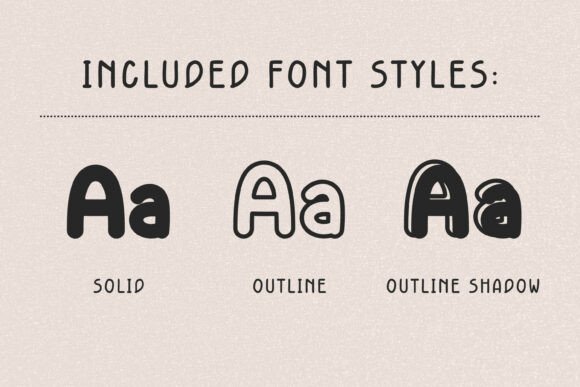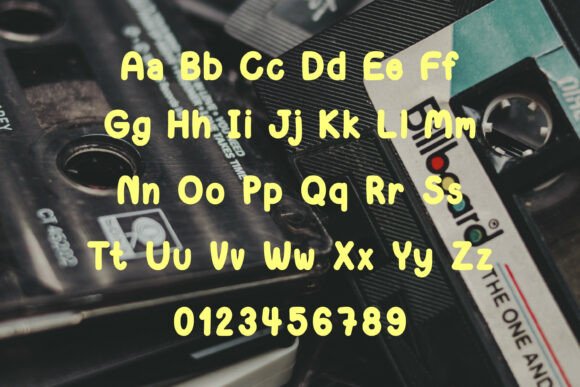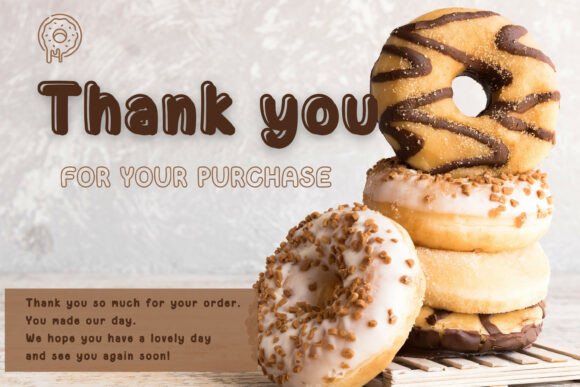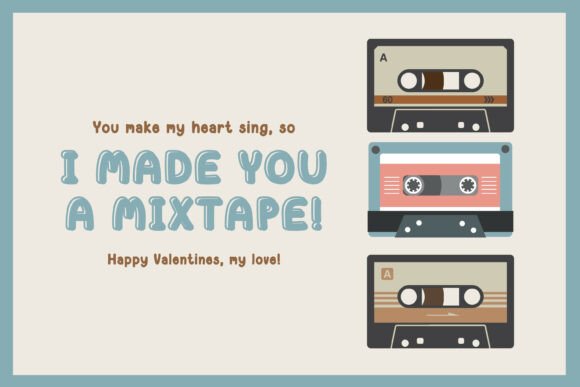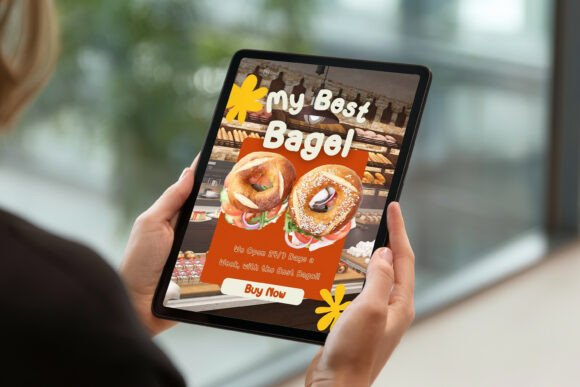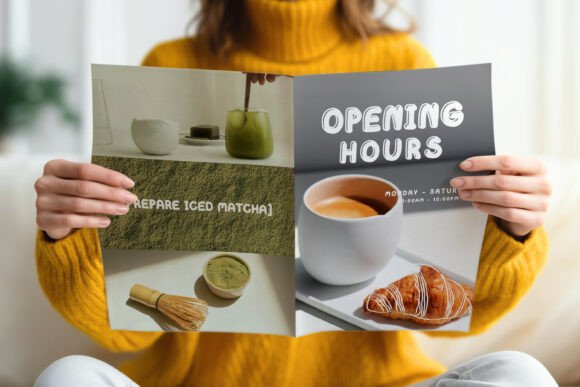
Introducing Cotton Soda Font: The Ultimate Retro Display Typeface
Are you looking for a font that can effortlessly capture a retro, high-energy vibe? Look no further than Cotton Soda, a playful display bubble font designed for maximum fun. This typeface features soft, rounded letterforms with a thick, pillowy weight and a subtle “bounce” in its alignment that gives it a vibrant, rhythmic personality.
The Characteristics of Cotton Soda Font
Cotton Soda font is a unique and eye-catching typeface that boasts a range of characteristics that make it perfect for nostalgic designs. Some of its key features include:
- Soft, rounded letterforms: Cotton Soda features soft, rounded letterforms that give it a friendly and approachable aesthetic.
- Thick, pillowy weight: The font has a thick, pillowy weight that gives it a tactile and playful feel.
- Subtle “bounce” in its alignment: The subtle “bounce” in the font’s alignment gives it a vibrant, rhythmic personality that’s perfect for capturing a retro vibe.
Use Cases for Cotton Soda Font
Cotton Soda font is an exceptional choice for a range of design projects, including:
- Nostalgic 80s or 90s-themed designs: The font’s retro vibe makes it perfect for designs that require a nostalgic feel, such as logos, posters, and packaging for products that evoke a sense of nostalgia.
- Children’s toy packaging: The font’s playful and friendly aesthetic makes it an excellent choice for children’s toy packaging, as it’s sure to appeal to kids and parents alike.
- Creative lifestyle branding: Cotton Soda font is perfect for lifestyle brands that want to evoke a sense of fun and playfulness, such as fashion brands, food and beverage companies, and travel companies.
- Catchy social media headers: The font’s bold and eye-catching design makes it perfect for social media headers, where it can help grab the attention of users and draw them in.
Design Inspiration with Cotton Soda Font
Cotton Soda font is perfect for designers who want to add a touch of joyful nostalgia and soft, tactile charm to their creative layouts. Here are a few design inspiration ideas to get you started:
- Design a logo for a boutique soda brand: Use Cotton Soda font to create a logo that’s fun, playful, and eye-catching, and that captures the essence of a boutique soda brand.
- Create a standout poster for a summer festival: The font’s bold and colorful design makes it perfect for posters and flyers, where it can help grab the attention of potential attendees and draw them in.
- Develop a brand identity for a children’s toy company: Cotton Soda font is an excellent choice for children’s toy packaging and branding, as it’s sure to appeal to kids and parents alike.
Tips for Using Cotton Soda Font
Here are a few tips for using Cotton Soda font in your designs:
- Use it in large sizes: Cotton Soda font is designed to be used in large sizes, where its bold and eye-catching design can really shine.
- Experiment with colors: The font’s playful and fun aesthetic makes it perfect for experimenting with different colors and color combinations.
- Pair it with complementary fonts: Cotton Soda font can be paired with a range of complementary fonts to create a unique and eye-catching design.
Cotton Soda font is a unique and eye-catching display typeface that’s perfect for designers who want to add a touch of joyful nostalgia and soft, tactile charm to their creative layouts. With its soft, rounded letterforms, thick, pillowy weight, and subtle “bounce” in its alignment, this font is sure to capture a retro, high-energy vibe that’s perfect for a range of design projects. Whether you’re designing a logo for a boutique soda brand or a standout poster for a summer festival, Cotton Soda font is an excellent choice.